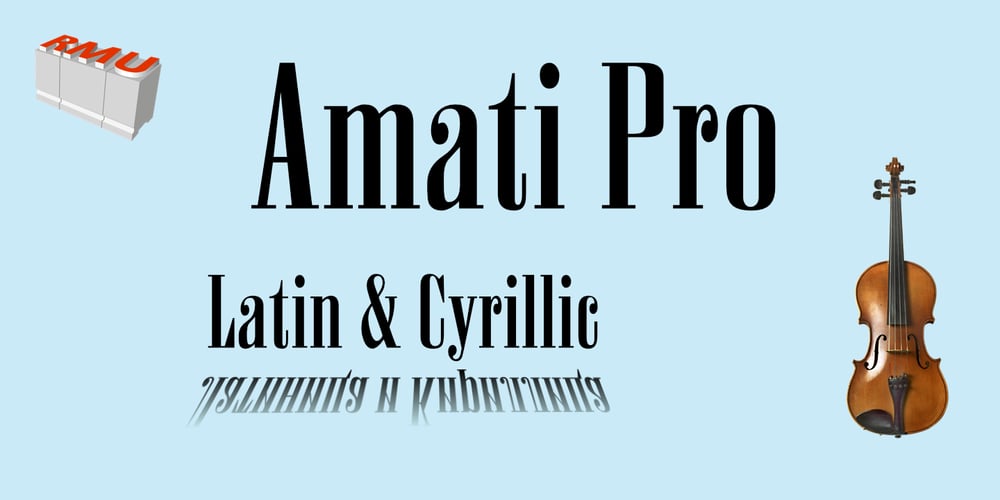
Amati Pro Font Family was designed by Georg Trump, Ralph M. Unger and published by RMU. Amati Pro contains 1 styles and family package options. A revived and updated version of Georg Trump’s Amati which was first released by C. Weber Foundry, Stuttgart, in 1951. A compressed multilingual serif font for many purposes.